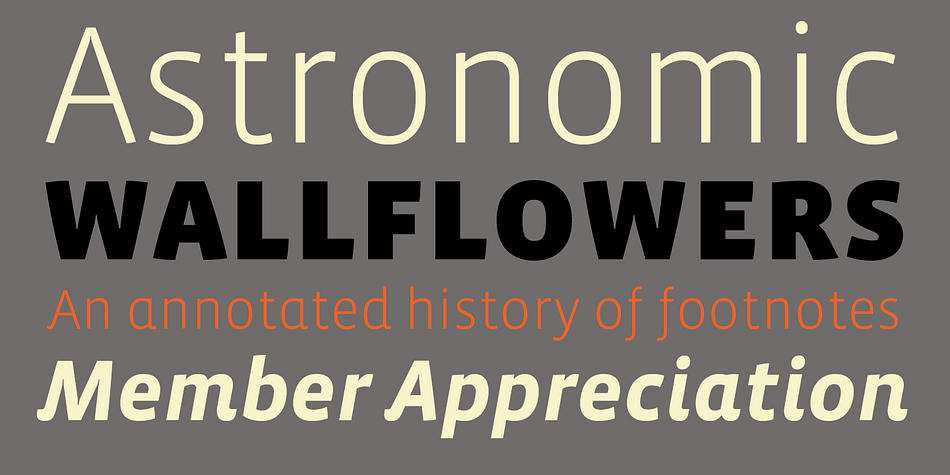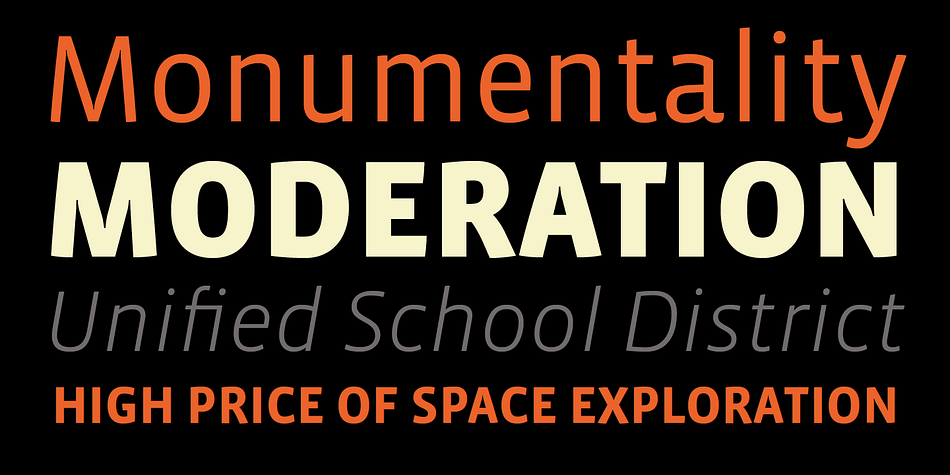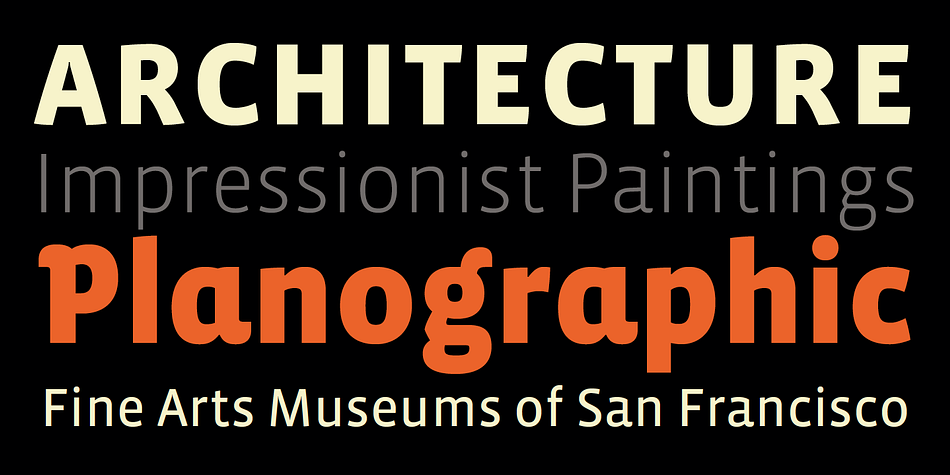
Designed by Xavier Dupré, Vista Sans is a sans serif font family. This typeface has twelve styles and was published by Emigre.
“The concept for Vista began when I sketched a few characters in a notebook while staying in Sumatra on a one month holiday. I wanted to design a typeface for text and display that would retain some of the characteristics of the idiosyncratic shop signs that surrounded me in Sumatra.” - Xavier Dupré
The result is a comprehensive family spanning six weights, complete with small caps and lively alternate forms, striking a healthy balance between functionality and expressiveness.